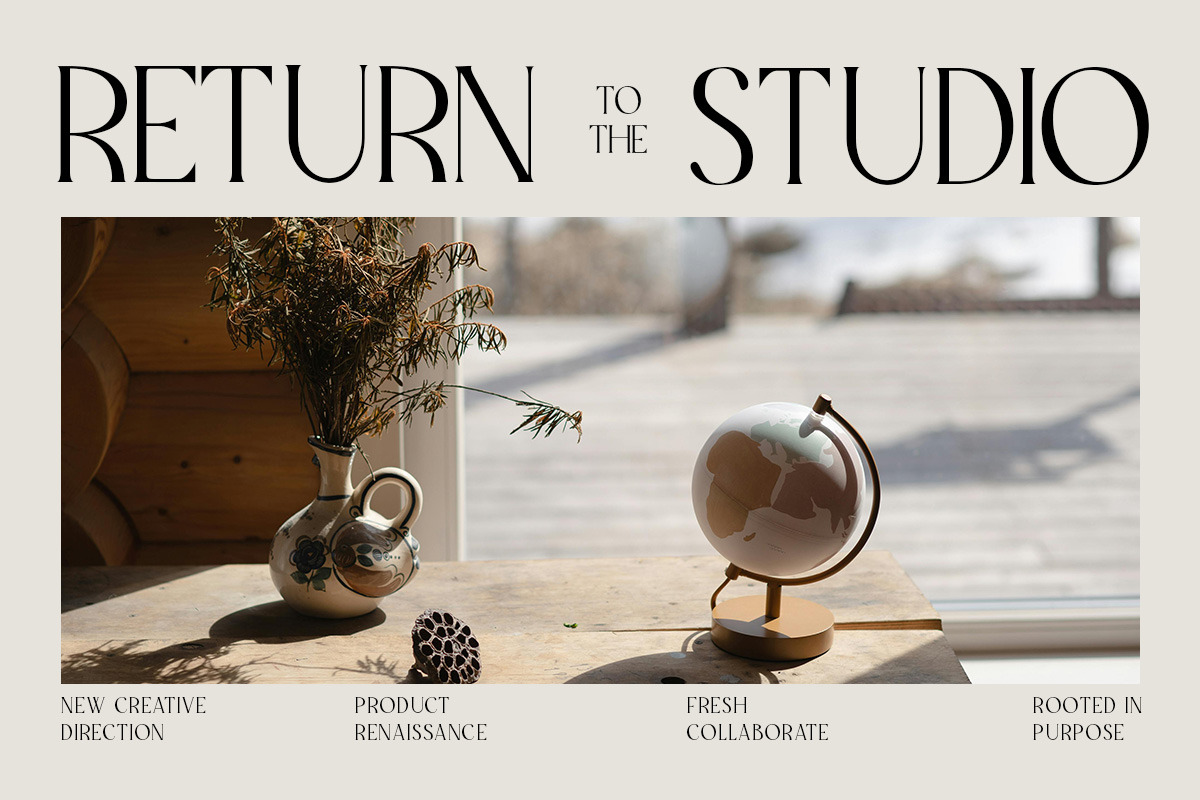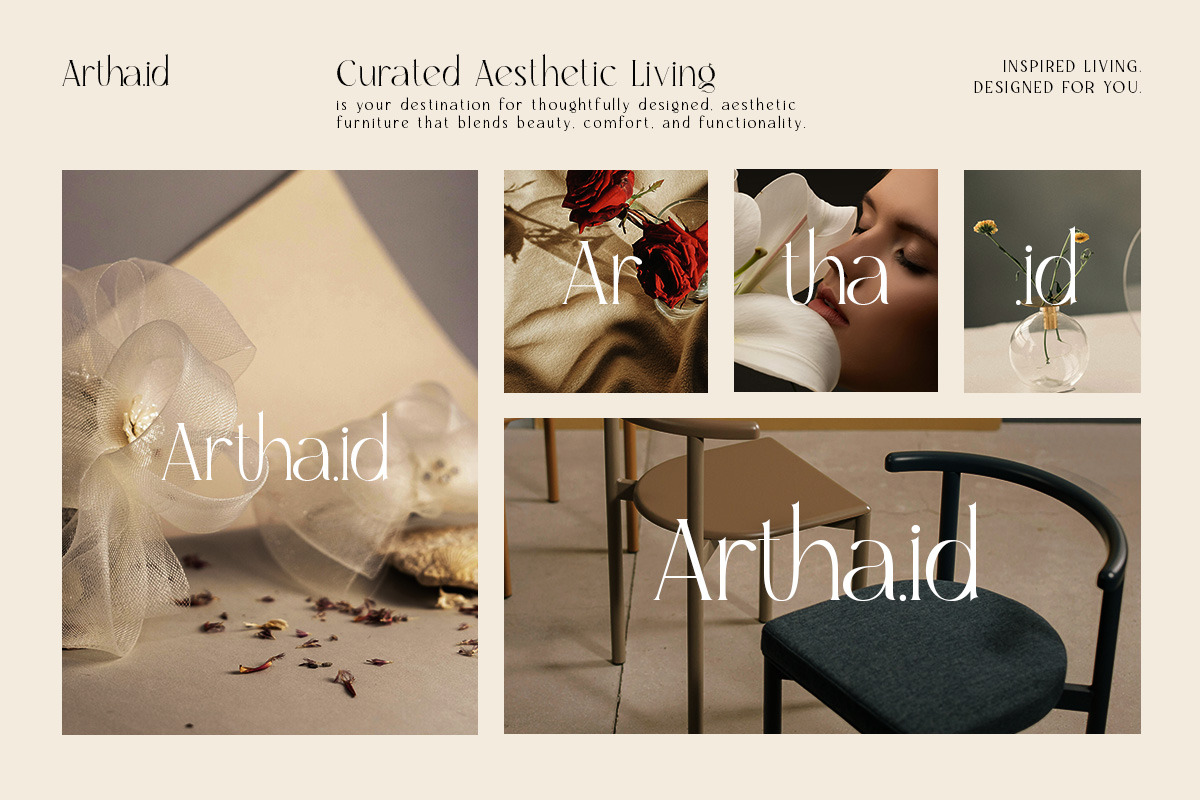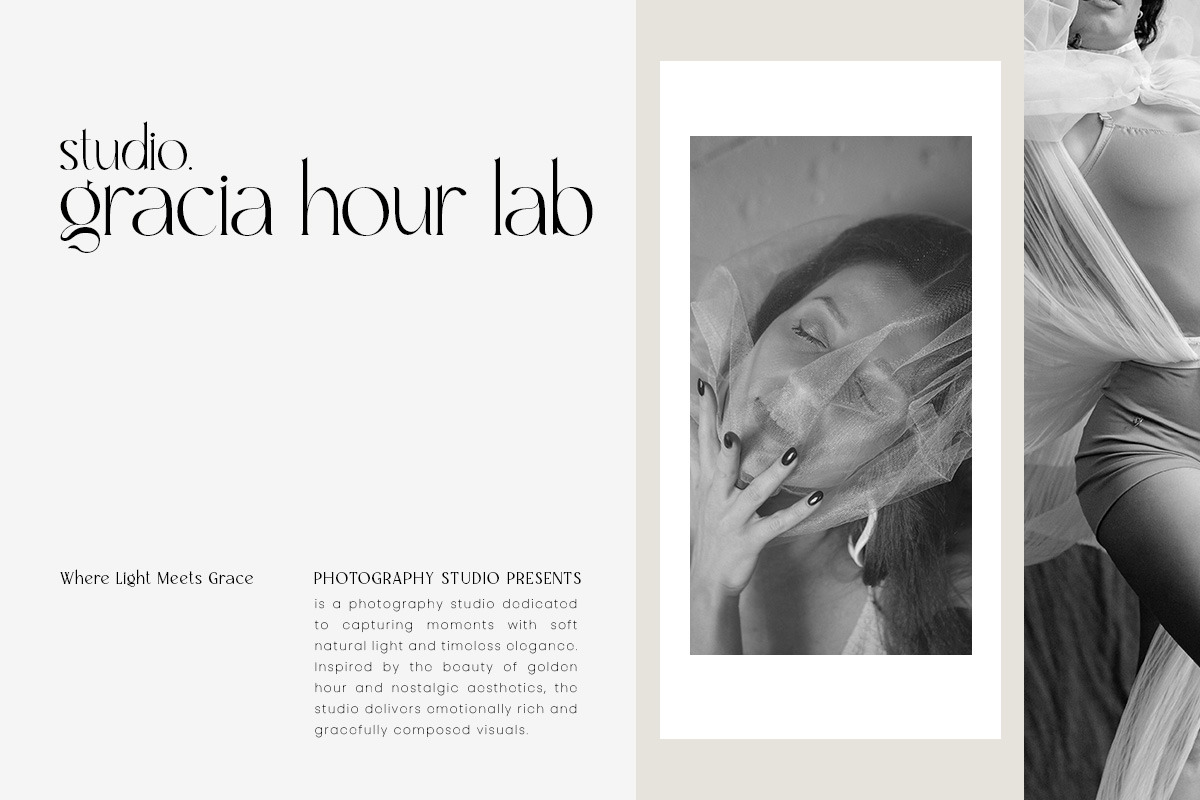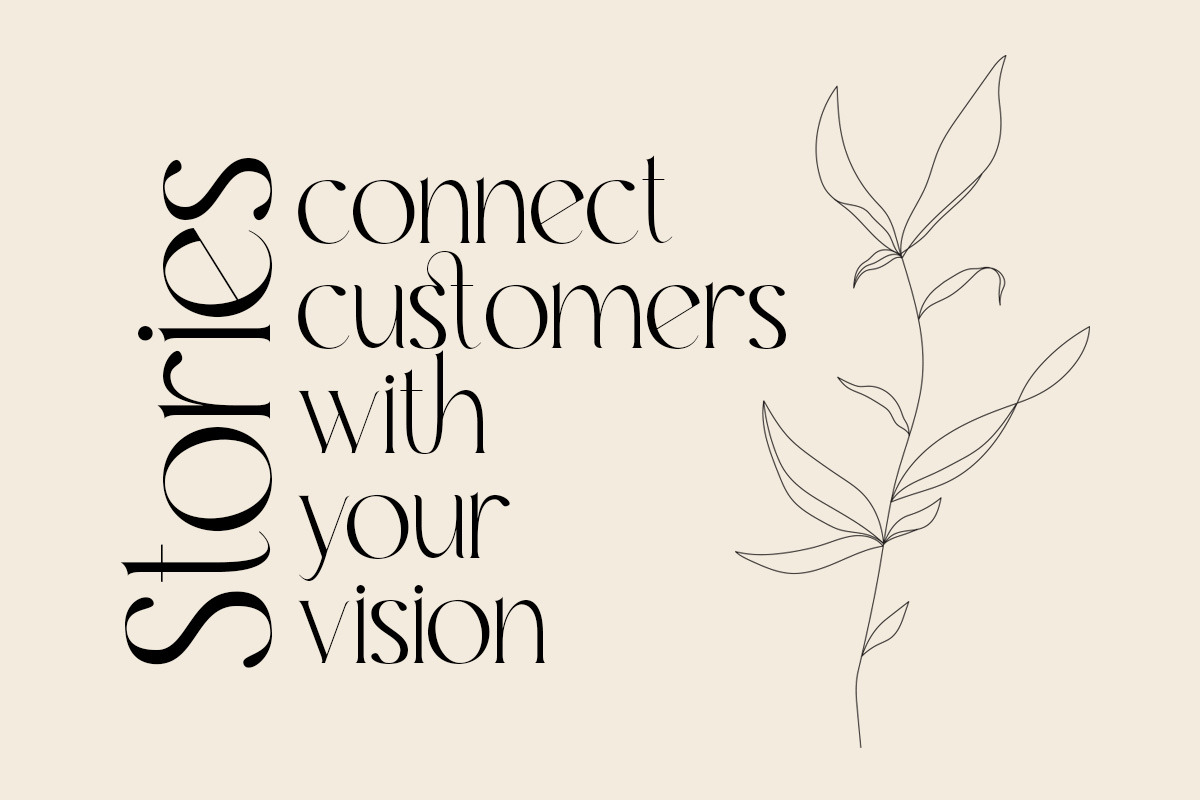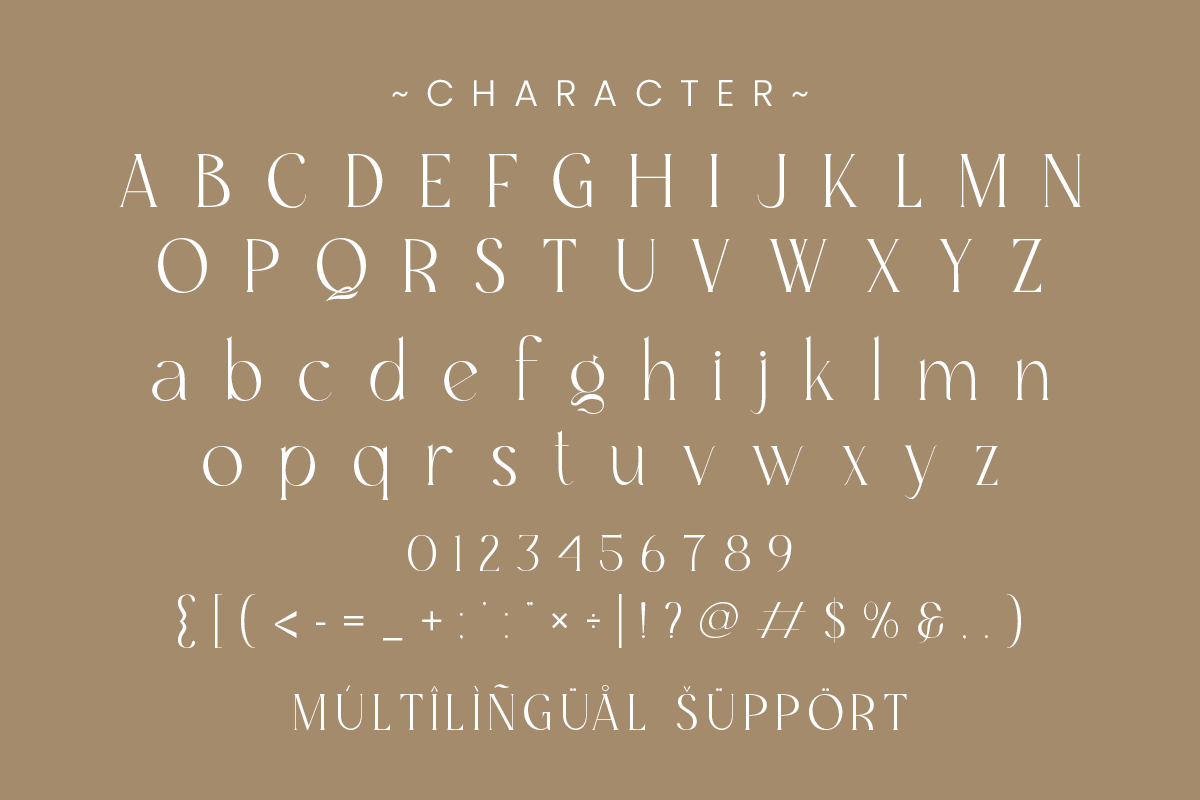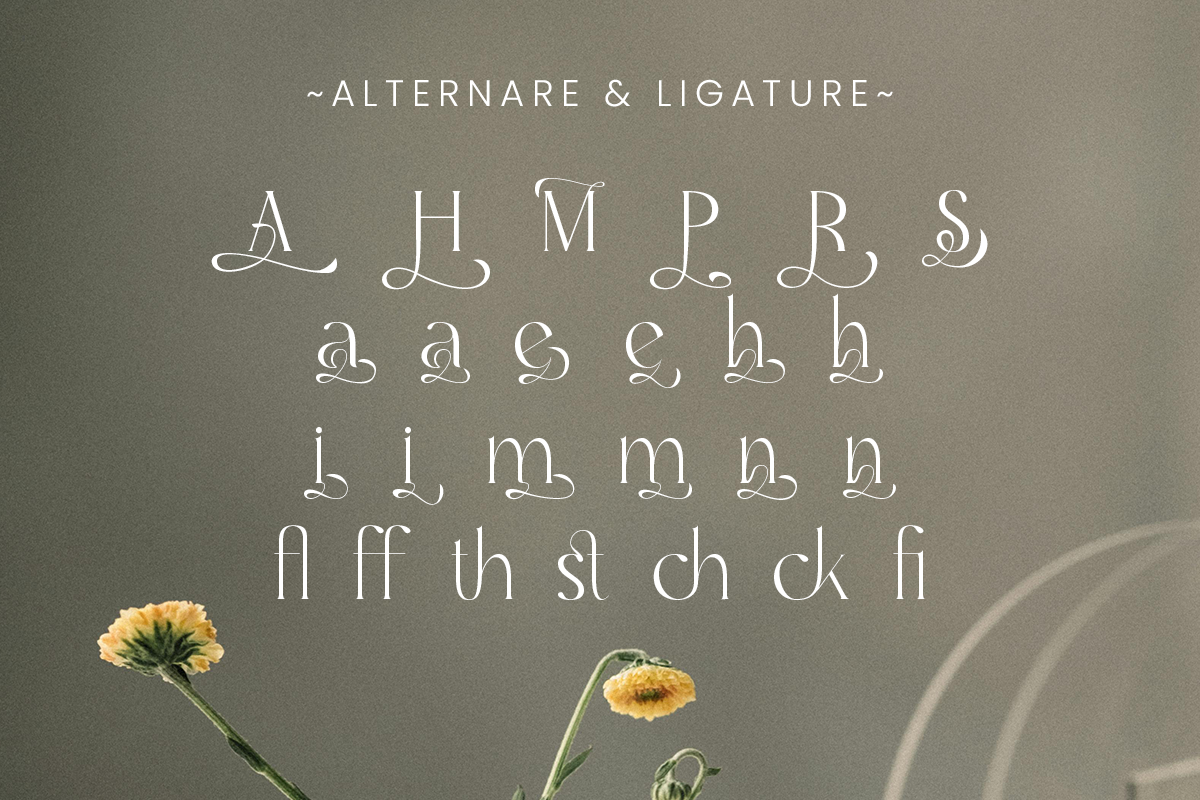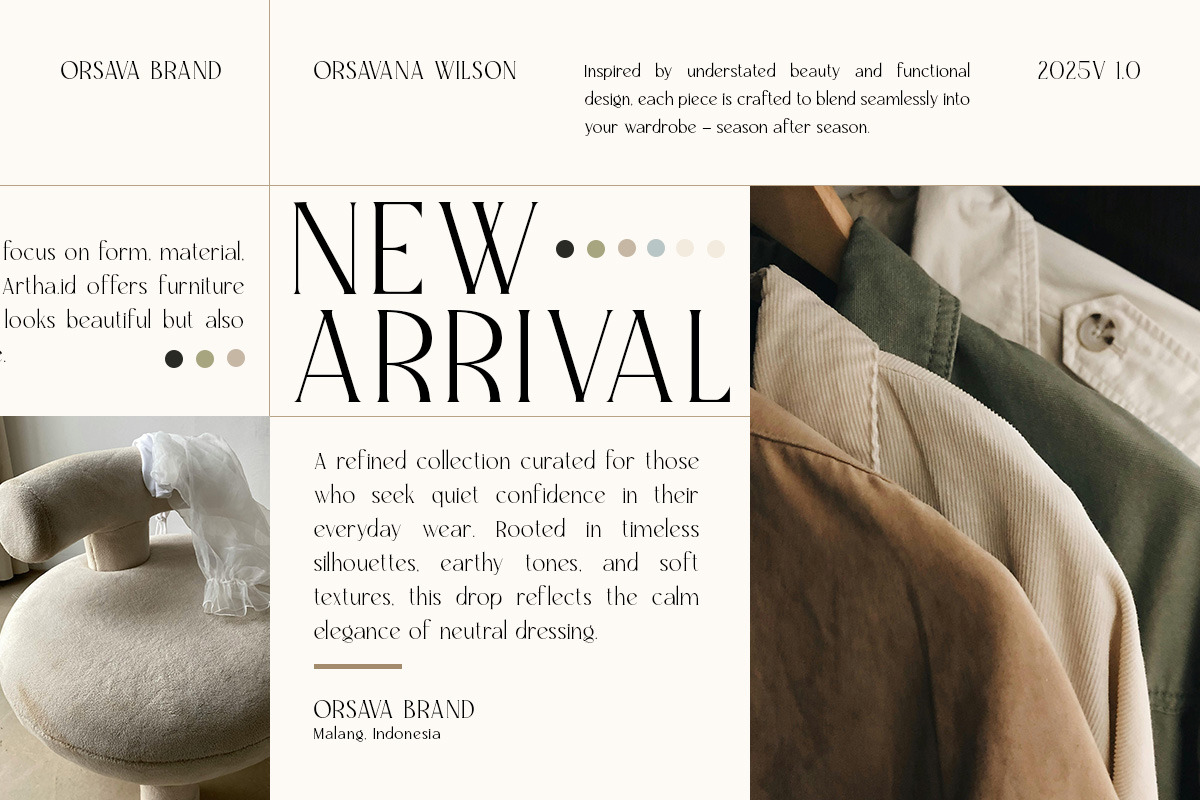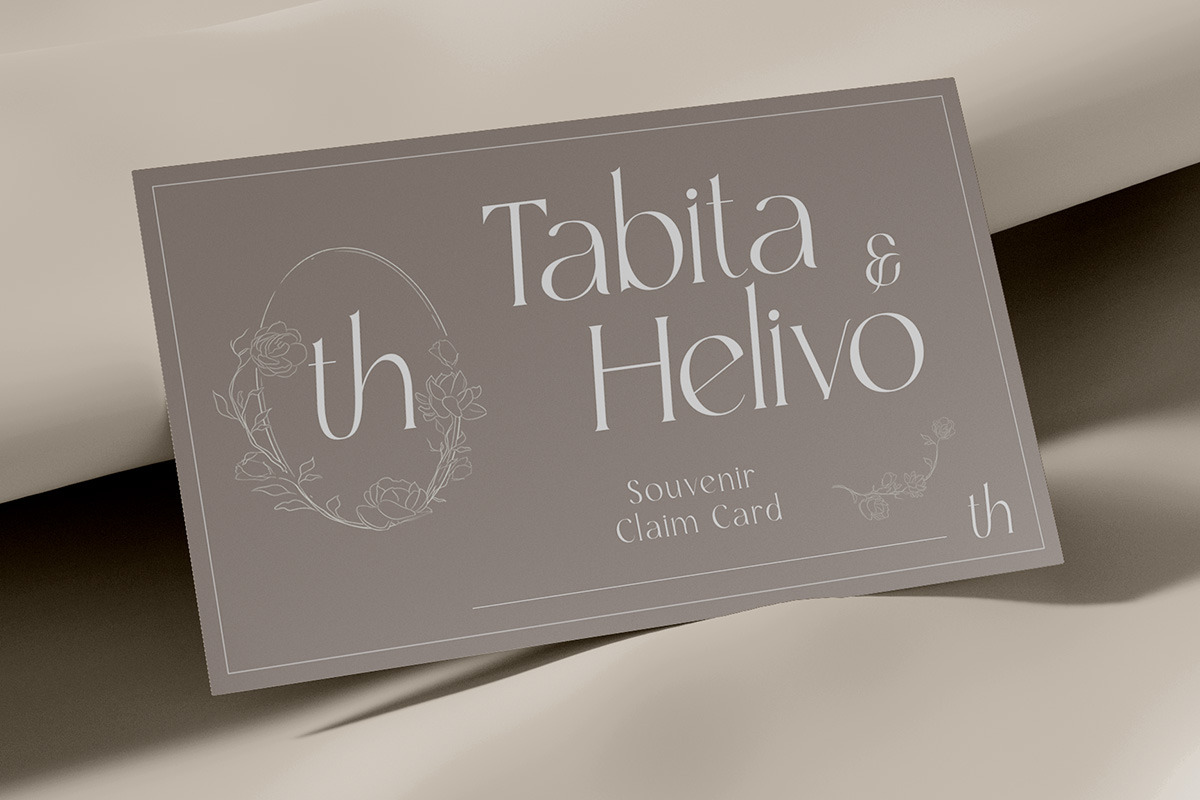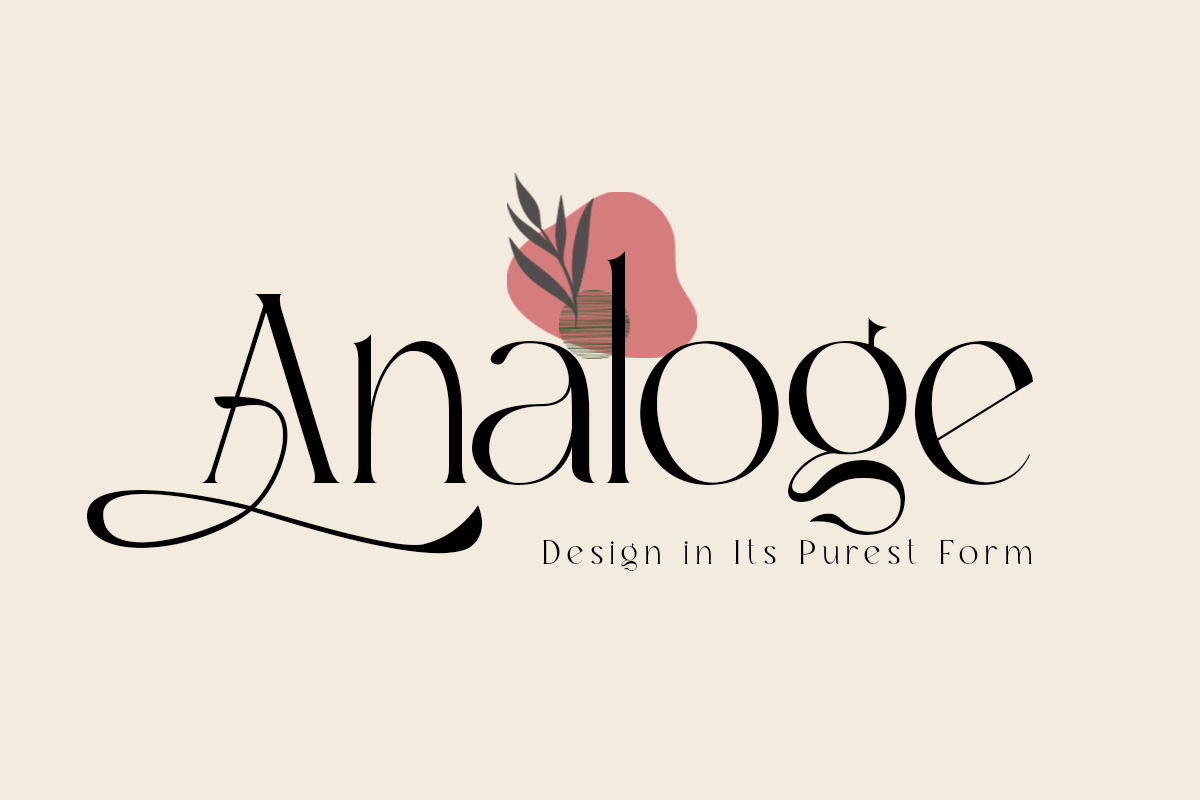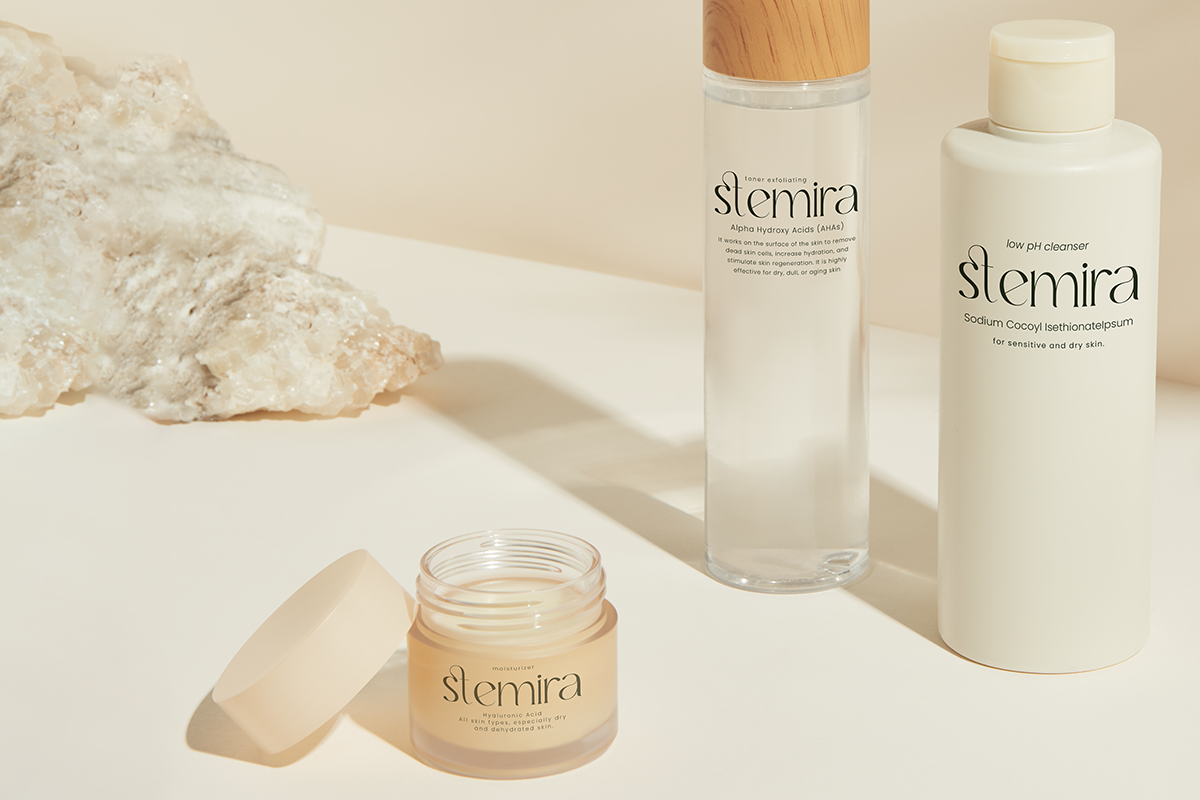
Marquis - Elegant Modern Serif
Marquis is a modern serif font that blends classic elegance with a clean, minimalist soul. Featuring graceful curves, fine details, and stylish ligatures, it’s the perfect choice for designers who want to add a touch of luxury to their work.
Whether you're crafting brand logos, designing editorial spreads, or creating premium social media content, Marquis brings a timeless and sophisticated feel that works across many styles — from feminine to modern classic.